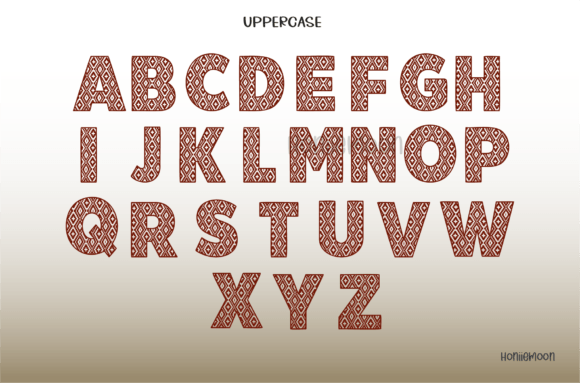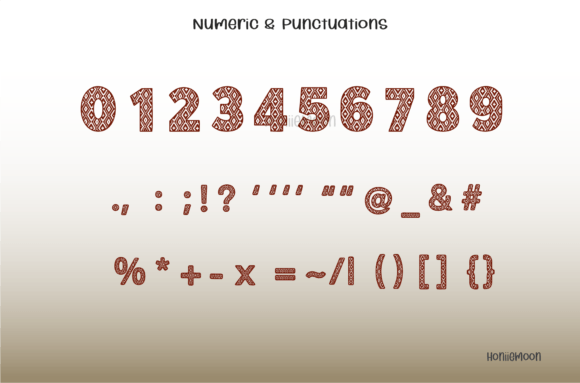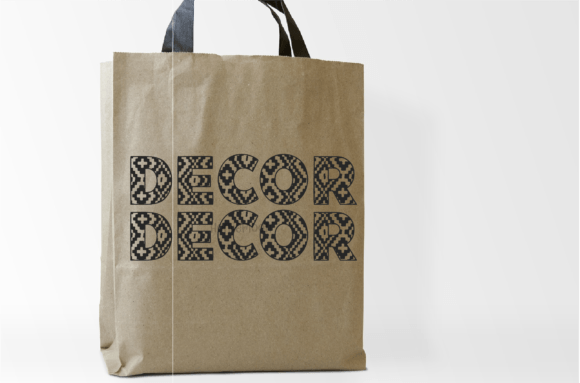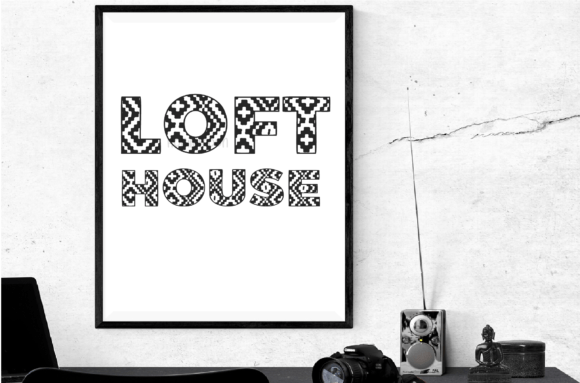
Introduction to Crochet Fabric Font Font
Fonts play a crucial role in design, and the Crochet Fabric Font font is a typeface that brings both character and versatility to any project. Whether you’re working on a branding project, a website, or a print design, the Crochet Fabric Font font offers a unique style that can elevate your work.
Crochet Fabric is a cool and fun crochet decorative font.
It looks cute and jolly, and it will enhance each of your designs The only limit is your imagination.
Key Features of Crochet Fabric Font Font
Why Choose Crochet Fabric Font Font?
The Crochet Fabric Font font is more than just a typeface – it’s a design tool that helps you communicate your message with style and clarity. Its unique character set and versatile design make it suitable for a wide range of applications, from elegant invitations to bold headlines.
With its carefully crafted letterforms and balanced proportions, the Crochet Fabric Font font ensures readability and visual appeal across all mediums.
What makes Crochet Fabric Font font special?
The Crochet Fabric Font font stands out with its unique design, exceptional readability, and versatility across various design applications.